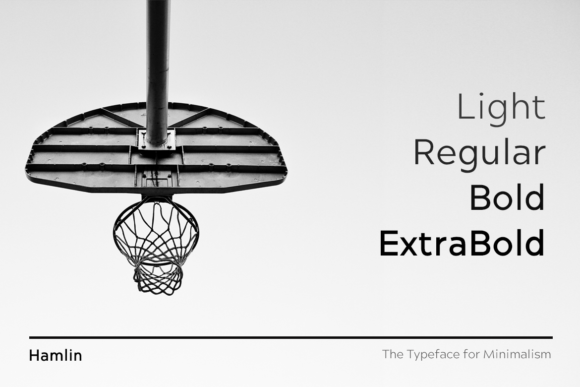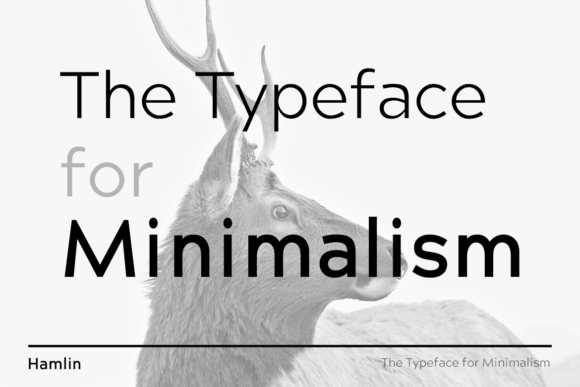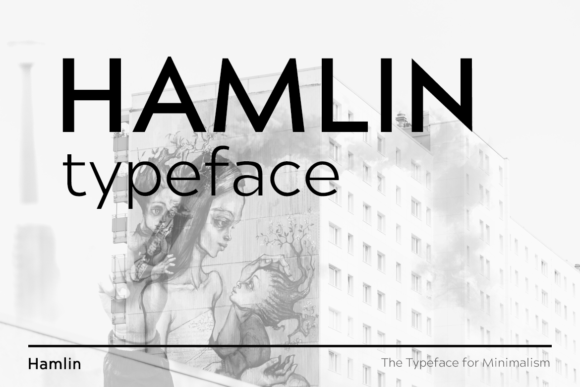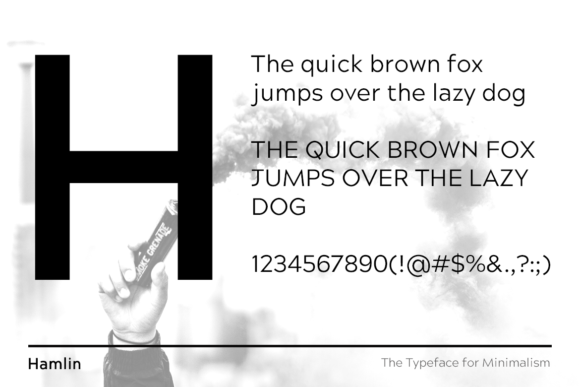
Introducing Hamlin Font: The Epitome of Modern Minimalism
In the realm of typography, the pursuit of simplicity and elegance is a perpetual quest. The Hamlin font, a modern sans serif typeface, embodies this ethos, embracing minimalism as the new design trend. Inspired by classic geometric fonts, Hamlin boasts its own distinct uniqueness, depth, and identity, making it an exemplary choice for designers and crafters seeking to elevate their visual creations.
The Concept and Design of Hamlin
The concept of Hamlin is rooted in the principles of minimalism, a design movement that advocates for simplicity and clarity. By stripping away unnecessary elements, Hamlin achieves a clean and sophisticated aesthetic, perfect for creating stunning headlines, body texts, and logos. Its geometric origins provide a solid foundation, while its distinctive character ensures that it stands out from more traditional typefaces.
Key Features of Hamlin Font
- Modern Sans Serif Typeface: Hamlin’s sans serif design ensures a clean and uncluttered look, making it ideal for a wide range of applications, from digital media to print.
- Dedicated to Minimalism: Embracing the less-is-more philosophy, Hamlin is perfect for designers who aim to convey messages with elegance and simplicity.
- Inspired by Classic Geometric Fonts: While paying homage to geometric fonts, Hamlin introduces its own twist, offering a fresh perspective on traditional typography.
- 4 Weights and Web Fonts: The font comes in four weights, providing versatility for various design needs. Additionally, the inclusion of web fonts ensures seamless integration into digital projects.
Applications of Hamlin Font
Hamlin’s versatility is one of its most compelling attributes. It is well-suited for:
- Headlines: Create impactful headlines that capture attention with Hamlin’s clean and modern aesthetic.
- Body Texts: Its readability makes it an excellent choice for body texts, ensuring that your message is conveyed clearly and effectively.
- Minimal Logo Types: Design logos that speak simplicity and sophistication, perfect for brands aiming to communicate elegance and modernity.
- Fashion Web Stores and Minimal Portfolio Websites: Adding some letter spacing transforms Hamlin into a unique style reminiscent of high-profile fashion web stores and minimal portfolio websites.
Why Choose Hamlin Font?
In a world where typography plays a crucial role in communication, Hamlin offers a blend of modernity, simplicity, and versatility. Designers and crafters can benefit from using Hamlin in several ways:
- Enhance Readability: Hamlin’s clear and clean design improves readability, ensuring that your audience can easily digest the information presented.
- Elevate Aesthetic Appeal: With Hamlin, you can add a touch of sophistication and modernity to your designs, setting them apart from more conventional typography.
- Streamline Design Process: The availability of four weights and web fonts simplifies the design process, allowing for quick adaptation to various project requirements.
Hamlin font represents a significant addition to the typography landscape, offering a modern, minimalistic approach to design. Its geometric roots, combined with its unique character, make it an invaluable tool for designers and crafters aiming to create visually stunning and effective communications. Whether you’re designing for digital platforms or print, Hamlin provides the flexibility and elegance needed to bring your creative visions to life.
Embrace the simplicity and sophistication of Hamlin font in your next project. Explore its range of applications, from headlines and body texts to logos and web design, and discover how this modern sans serif typeface can elevate your work to new heights of aesthetic appeal and communicative effectiveness.